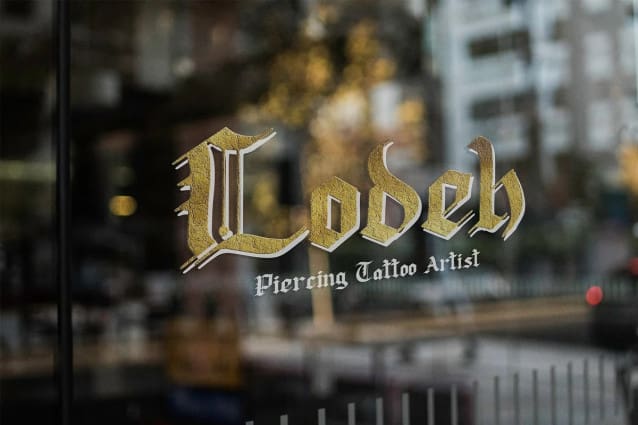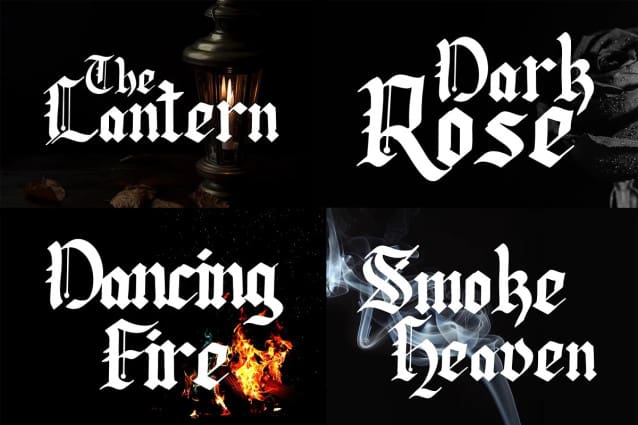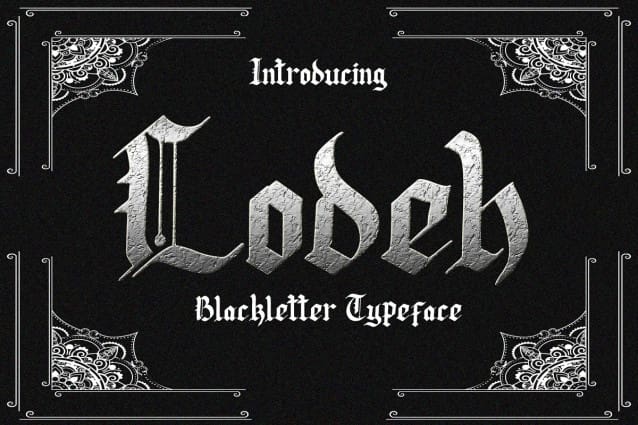
Lodeh Blackletter Font
Lodeh Blackletter Font is a bold and impactful font that pays homage to the traditional blackletter style. With its strong and gothic-inspired letterforms, this font exudes a sense of historical elegance and sophistication, making it perfect for vintage-themed designs, logos, signage, and other projects that require a touch of classic charm.
Features:
Gothic and Bold Style: The Lodeh Typeface embraces the bold and gothic aesthetics of traditional blackletter fonts. Its strong and sharp letterforms create a commanding and authoritative look, making it ideal for projects that require a bold and impactful typography.
Historical Elegance: The font’s design captures the essence of historical elegance and sophistication. It harks back to the traditional blackletter scripts used in medieval manuscripts, adding a touch of classic charm to your designs.
Versatile Application: This font is versatile and well-suited for various design projects that aim to evoke a sense of heritage and vintage aesthetics. Use it in vintage-themed designs, logos, signage, packaging, and more to add a touch of historical elegance to your creations.
Uppercase and Lowercase Letters: The font includes both uppercase and lowercase letters, providing flexibility and creative freedom in your designs. Mix and match the cases to create visually appealing and balanced typography.
Punctuation and Symbols: In addition to the alphabet, the Lodeh Typeface includes a comprehensive set of punctuation marks, numerals, and common symbols. This ensures consistency and ease of use when incorporating the font into your design projects.
Capture the historical elegance and sophistication of the Lodeh Black Letter Typeface. Let its bold and gothic-inspired letterforms add a touch of classic charm to your vintage-themed designs, logos, and signage. Embrace the timeless beauty of this font and create designs that exude a sense of heritage and grandeur.